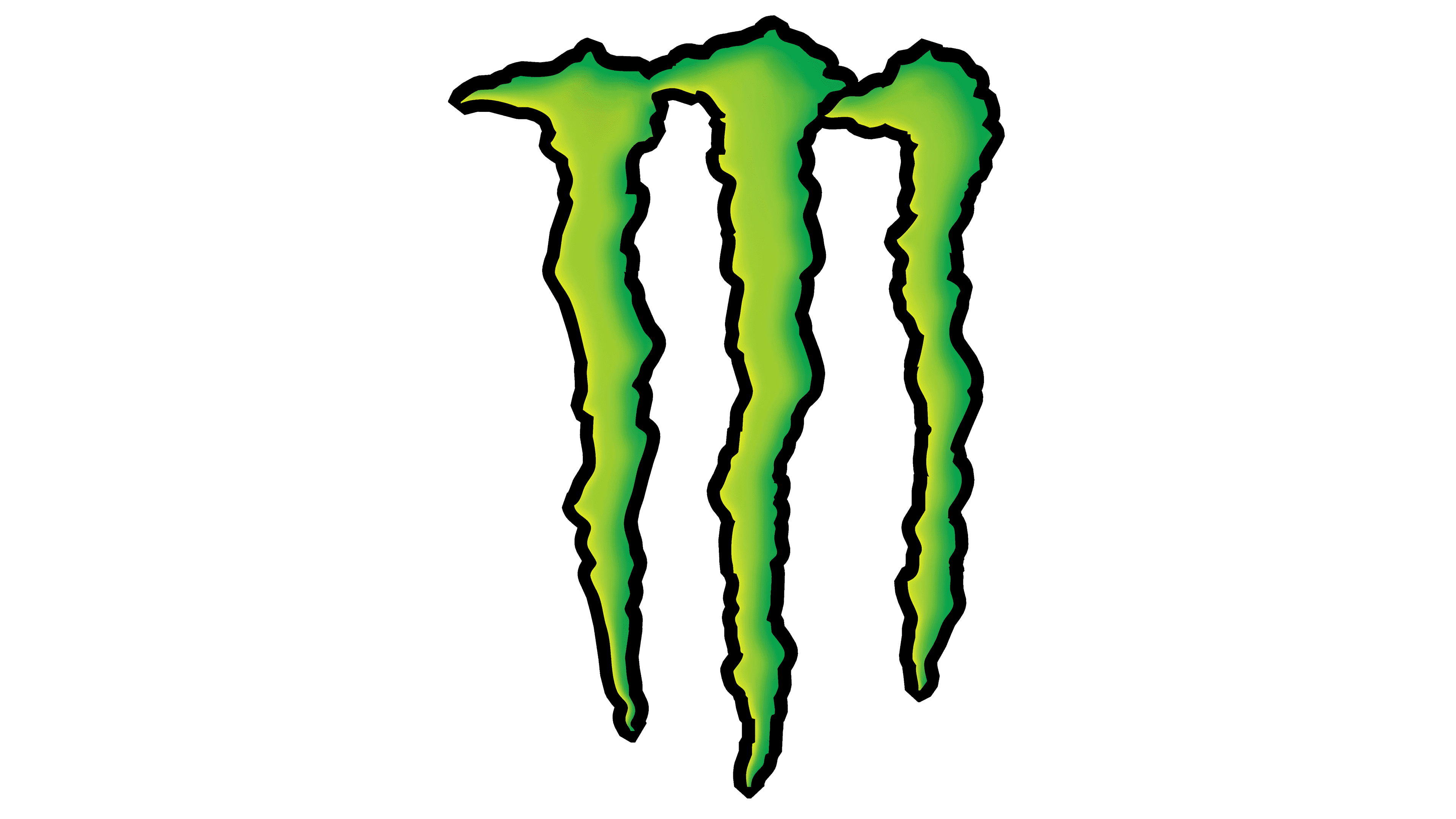
Font Monster Energy
Font Monster Energy - This comic font has available only in the regular style. Web monster energy font family. Along with 53 number of glyphs and 2048 units. Web the font that monster uses is known as green energy, which we feel is perfectly named because the original. Unleash the beast suggested by. Web what is the name of font in logo monster energy,.
Web what is the name of font in logo monster energy,. Along with 53 number of glyphs and 2048 units. This comic font has available only in the regular style. Unleash the beast suggested by. Web monster energy font family. Web the font that monster uses is known as green energy, which we feel is perfectly named because the original.
Web the font that monster uses is known as green energy, which we feel is perfectly named because the original. Web monster energy font family. Unleash the beast suggested by. Along with 53 number of glyphs and 2048 units. Web what is the name of font in logo monster energy,. This comic font has available only in the regular style.
Unleash the beast suggested by. Web monster energy font family. Web the font that monster uses is known as green energy, which we feel is perfectly named because the original. Web what is the name of font in logo monster energy,. Along with 53 number of glyphs and 2048 units.
Unleash the beast suggested by. Along with 53 number of glyphs and 2048 units. Web the font that monster uses is known as green energy, which we feel is perfectly named because the original. Web monster energy font family. This comic font has available only in the regular style.
This comic font has available only in the regular style. Web the font that monster uses is known as green energy, which we feel is perfectly named because the original. Unleash the beast suggested by. Web monster energy font family. Web what is the name of font in logo monster energy,.
Web what is the name of font in logo monster energy,. Unleash the beast suggested by. Along with 53 number of glyphs and 2048 units. This comic font has available only in the regular style. Web the font that monster uses is known as green energy, which we feel is perfectly named because the original.
Web monster energy font family. This comic font has available only in the regular style. Web the font that monster uses is known as green energy, which we feel is perfectly named because the original. Along with 53 number of glyphs and 2048 units. Unleash the beast suggested by.
Web what is the name of font in logo monster energy,. This comic font has available only in the regular style. Web the font that monster uses is known as green energy, which we feel is perfectly named because the original. Unleash the beast suggested by. Along with 53 number of glyphs and 2048 units.
Web the font that monster uses is known as green energy, which we feel is perfectly named because the original. Web monster energy font family. Unleash the beast suggested by. This comic font has available only in the regular style. Web what is the name of font in logo monster energy,.
Along with 53 number of glyphs and 2048 units. Web what is the name of font in logo monster energy,. Web the font that monster uses is known as green energy, which we feel is perfectly named because the original. This comic font has available only in the regular style. Web monster energy font family.
Web what is the name of font in logo monster energy,. This comic font has available only in the regular style. Web the font that monster uses is known as green energy, which we feel is perfectly named because the original. Web monster energy font family. Along with 53 number of glyphs and 2048 units.
Web the font that monster uses is known as green energy, which we feel is perfectly named because the original. This comic font has available only in the regular style. Along with 53 number of glyphs and 2048 units. Web monster energy font family. Web what is the name of font in logo monster energy,.
Web What Is The Name Of Font In Logo Monster Energy,.
Unleash the beast suggested by. Web monster energy font family. Along with 53 number of glyphs and 2048 units. This comic font has available only in the regular style.